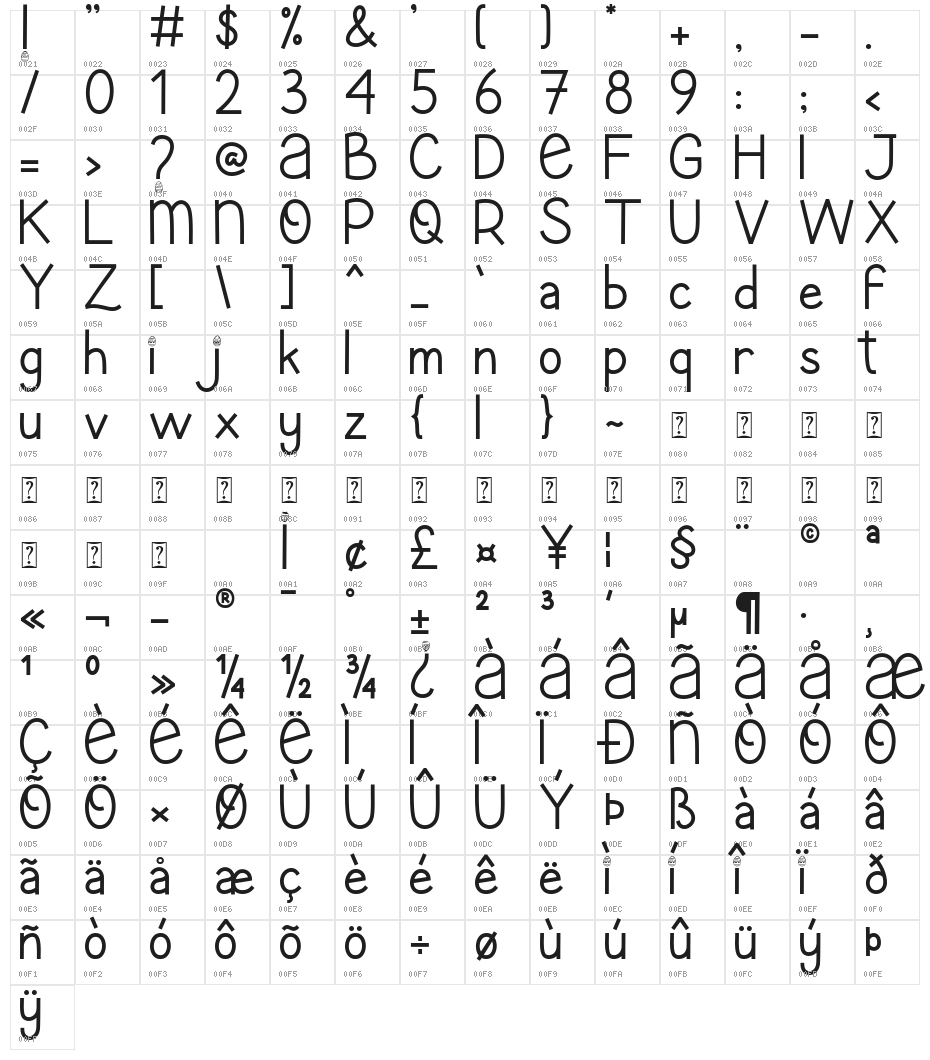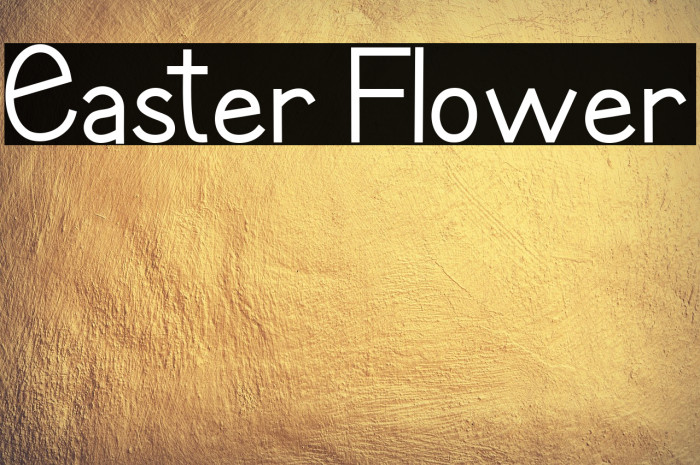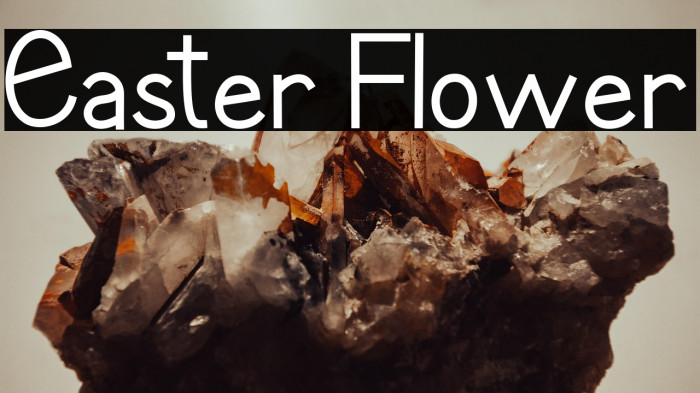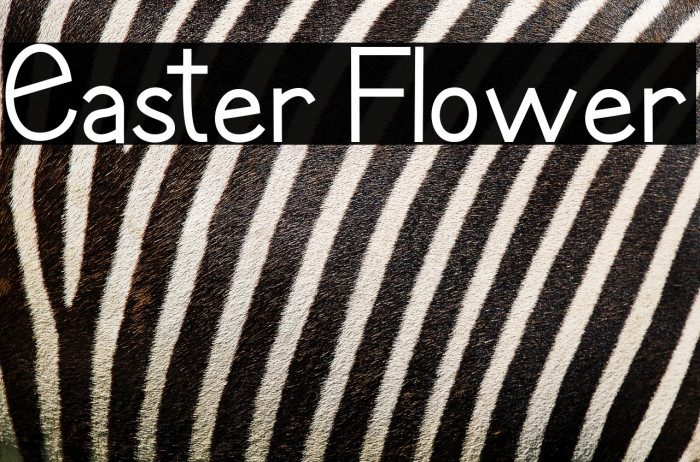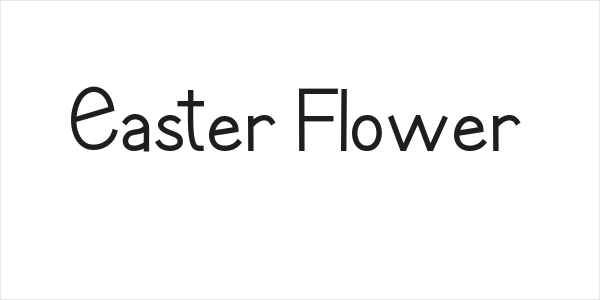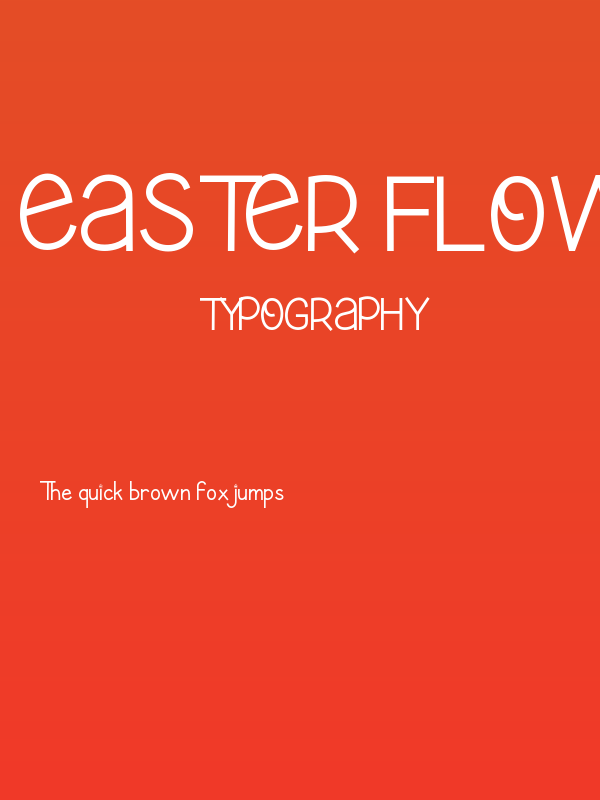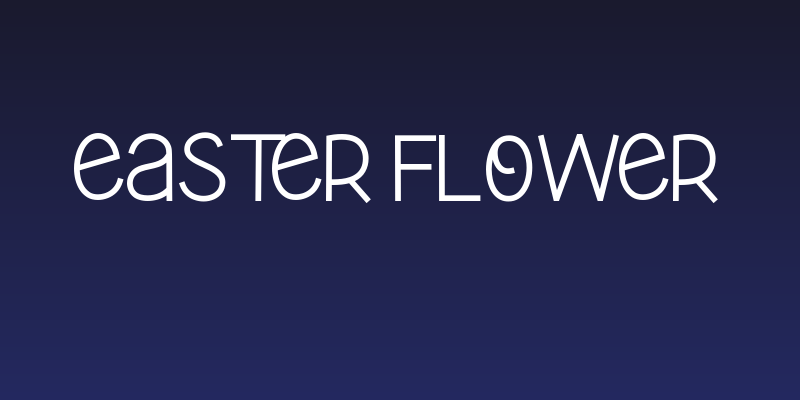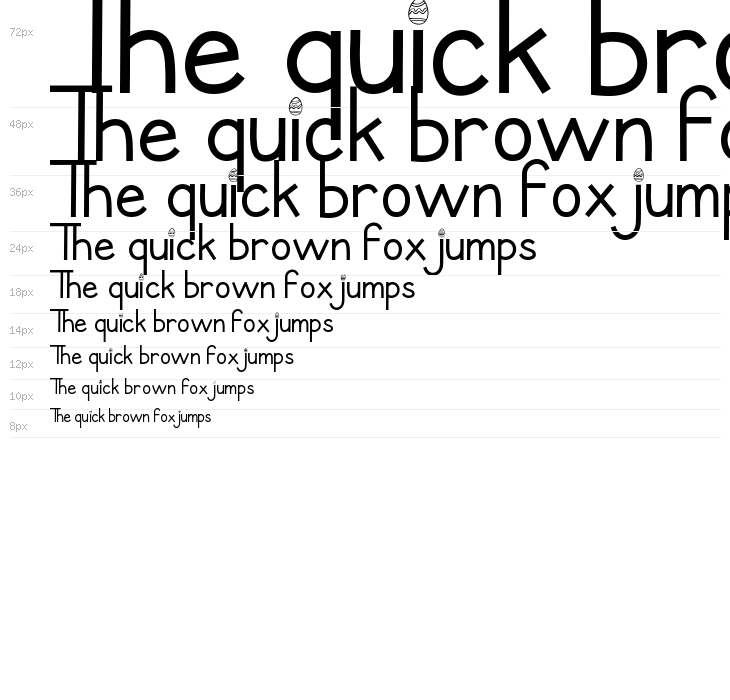
Easter Flower Font
Easter Flower Description
This playful and whimsical font features a unique blend of rounded and slightly elongated characters, giving it a friendly and approachable appearance. The letters are evenly spaced with a consistent stroke width, providing a clean and modern look. The font includes a full set of uppercase and lowercase letters, numerals, and a variety of special characters. Its distinctive style is enhanced by subtle decorative elements, such as the Easter-themed embellishments on certain characters, adding a touch of charm and personality.
| Overall Style | Playful, Modern |
| Proposed Projects | Ideal for children's books, greeting cards, festive invitations, and playful branding projects. |